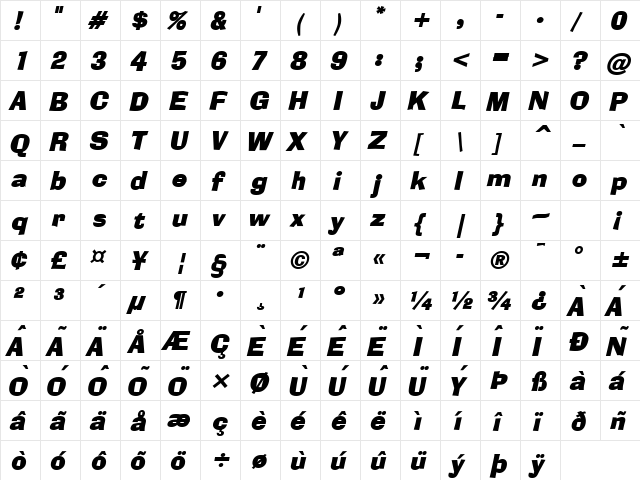
Alor BoldItalic
Design Context for Alor Typeface
Alor is a composed and adaptable typeface that performs quietly and consistently across a wide range of design contexts. The dynamic lean of this cut emphasises speed and emphasis in any layout. Its bold stroke weight gives it real presence on the page.
Pro Tip: Try Alor for annotation and caption copy alongside an upright companion — the contrast in angle creates a dynamic but ordered typographic system.